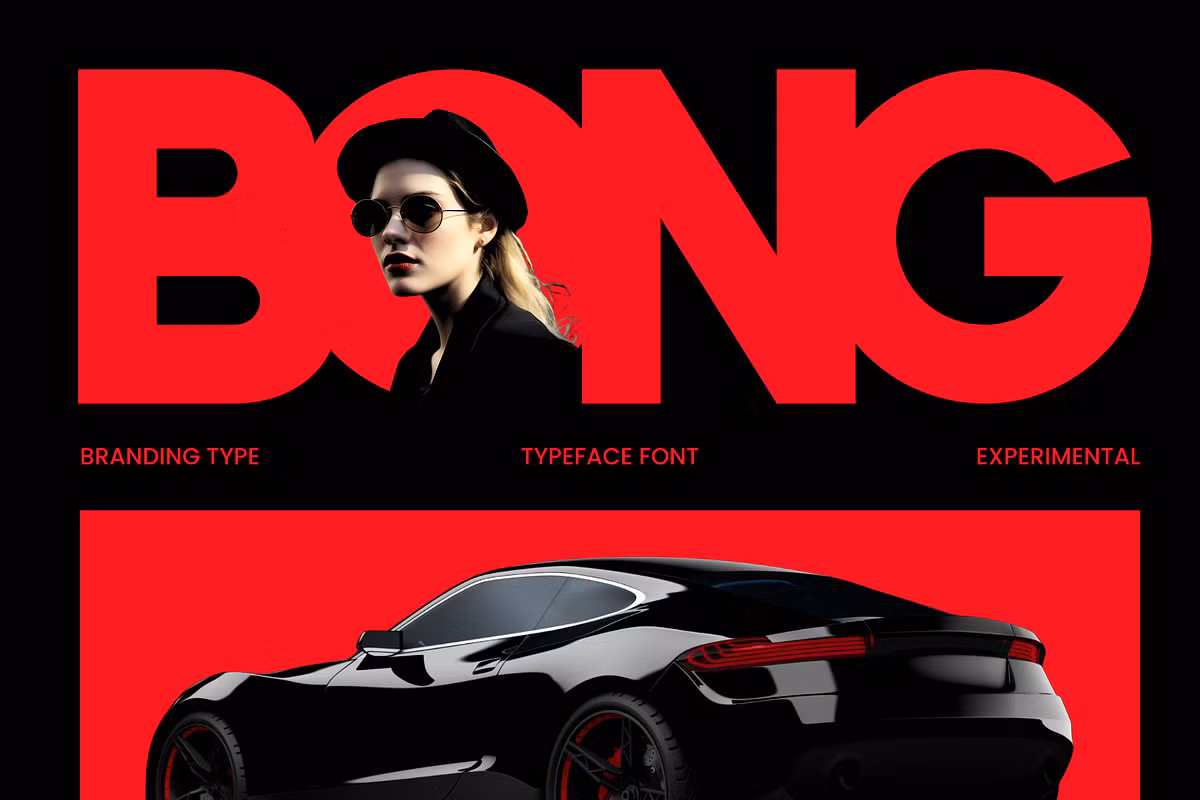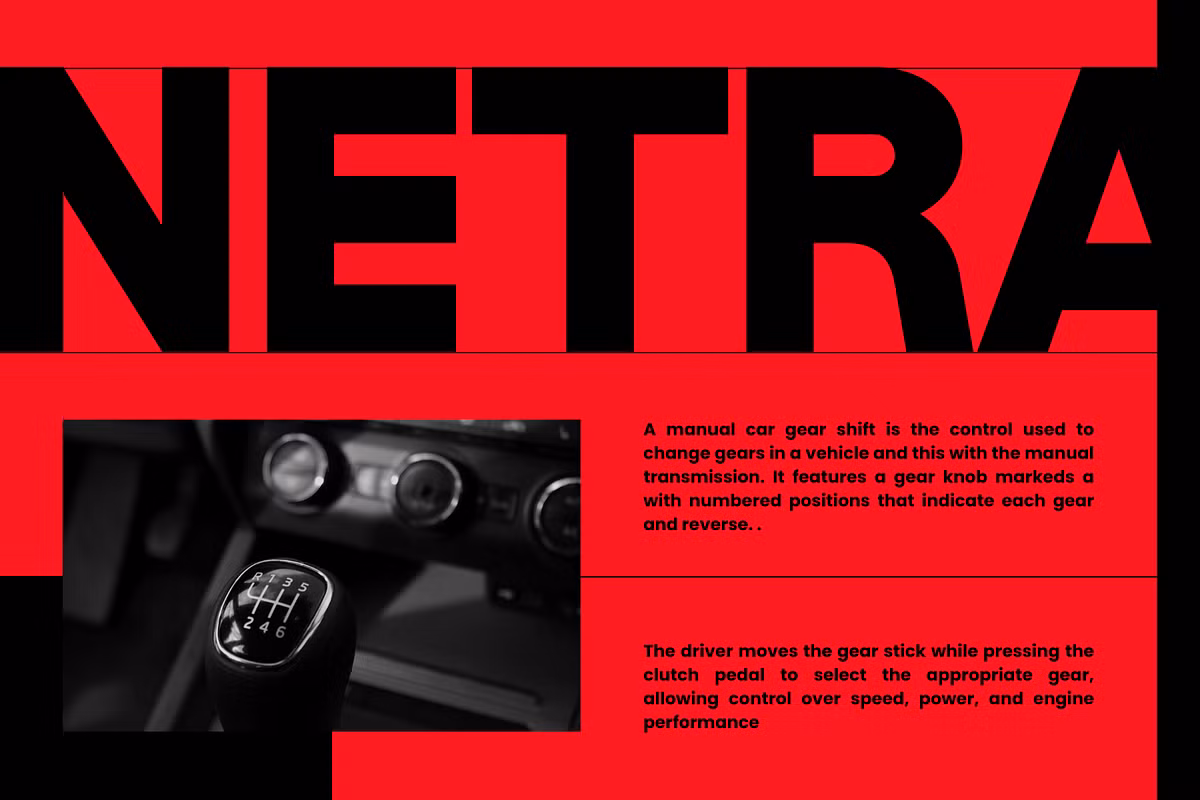
Henko: Bold Modern Sans Serif Typeface for Impactful Design
Meet Henko, a fresh and modern sans serif font that really makes a statement in the world of design. It’s got clean lines, a confident look, and is really easy to read. That’s why Henko is perfect for people who want to make a big impact with their typography. Its bold letters and well-balanced design make it a great choice for all sorts of creative projects, from simple designs to more complex ones. Whether you’re working on a website, a poster, or just a simple graphic, Henko is a great font to use if you want to get your message across loud and clear. With its modern look and feel, Henko is sure to help you stand out from the crowd and make a lasting impression.
Design Style of Henko
Henko has a really modern look that’s both strong and simple. Its smooth curves make it look great on anything, from computers to phones. What makes Henko stand out isn’t just how big it is, but how it demands attention. This typeface is perfect for grabbing people’s attention, whether it’s in a headline or used for branding. It’s all about making a statement.
The letters in Henko are carefully made to look stable and clear. It works well for big things like posters and small things like business cards – it always looks good. The simple way it’s designed fits with what’s popular in design now, and brands like it because it’s clear and professional. Henko is a great choice for companies that want to look modern and serious. Its clean lines and simple shapes make it easy to read and understand, which is important for businesses that want to communicate clearly with their customers. Overall, Henko is a versatile font that can be used in many different ways, from big signs to small labels, and it always looks great.
Character Sets and Versatility
Henko is a pretty versatile font, it can be used in lots of different ways. It’s got a big range of characters, including uppercase and lowercase letters, numbers, and punctuation marks. This means you can use it for all sorts of things, like printing or digital projects. Plus, it works with lots of different languages, which is really useful for big brands or projects that need to reach people who speak different languages. So, whether you’re making something for a global audience or just need a font that can handle different languages, Henko is a great choice. It’s designed to be flexible and work well in all kinds of situations, from simple designs to more complex projects. Overall, Henko is a solid option for anyone who needs a reliable and versatile font.
Henko also has ligatures that make the text flow better, so it’s easier to read. This is really helpful for designing logos and brands, because it makes the letters look connected and more professional. With Henko, designers don’t have to worry about limitations – it’s versatile enough to work well for anything from fancy magazine layouts to eye-catching social media posts. The way the letters fit together creates a smooth, cohesive look that’s perfect for making a strong impression. Whether you’re working on a big project or just a small graphic, Henko gives you the flexibility you need to make it look great.
Use Cases for Henko
Henko really stands out in a lot of different situations, showing it can fit in with various design settings. Let’s take a look at some of the key ways it’s being used.
- Branding and Logo Design: The bold nature of Henko makes it an excellent choice for creating memorable logos and brand identities that are recognizable and impactful.
- Posters and Flyers: Whether for events, promotions, or announcements, Henko’s strong letterforms ensure that your message is communicated effectively.
- Editorial Layouts: In magazines or online publications, Henko provides a modern touch to articles, making headlines stand out while maintaining readability.
- Social Media Graphics: The typeface’s clean lines and bold presence work well for eye-catching social media posts and advertisements.
- Web Design: Henko’s legibility on screens, combined with its stylish appearance, makes it a go-to typeface for websites looking to enhance their visual identity.
Pairing Suggestions for Henko
When it comes to typography, pairing fonts can enhance the overall design and create visual harmony. Here are some effective pairing suggestions for Henko:
- Henko and Serif Fonts: Pairing Henko with a classic serif font like Times New Roman or Georgia can create a striking contrast, balancing modernity with tradition.
- Henko and Script Fonts: For a more playful approach, consider pairing Henko with a script font like Pacifico or Great Vibes. This combination can add a personal touch to your designs.
- Henko and a Light Sans Serif: For a clean and professional look, consider pairing Henko with a lighter sans serif font like Open Sans or Lato. This creates a visual hierarchy that is easy to navigate.
Having a typeface like Henko at your disposal can be a game-changer as a designer. It’s all about modern design and clarity, which is exactly what’s in style right now. This makes Henko a great pick for any project that needs a bold, professional look. With its clean lines and sleek feel, Henko can add a level of sophistication to your work. Whether you’re working on a website, a brochure, or something else entirely, Henko’s versatility means it can adapt to your needs. The result is a typographic solution that’s both modern and timeless, making it an excellent addition to any designer’s toolkit.
Henko is not just a typeface with a modern look, it’s a tool that can really make your projects better and help your brand stand out. It has a lot of great characters, can be used in many different ways, and has a stylish design. This makes it a must-have for any designer’s collection of fonts. Whether you’re working on a brand, laying out a magazine, or making digital graphics, Henko gives you the clarity and impact you need to make your designs really pop. By using Henko’s simple yet bold style, you can turn your creative ideas into something real and amazing. It’s perfect for designers who want to make a statement with their work and need a font that can keep up with their vision. With Henko, you can create designs that are both beautiful and effective, which is what every designer strives for.